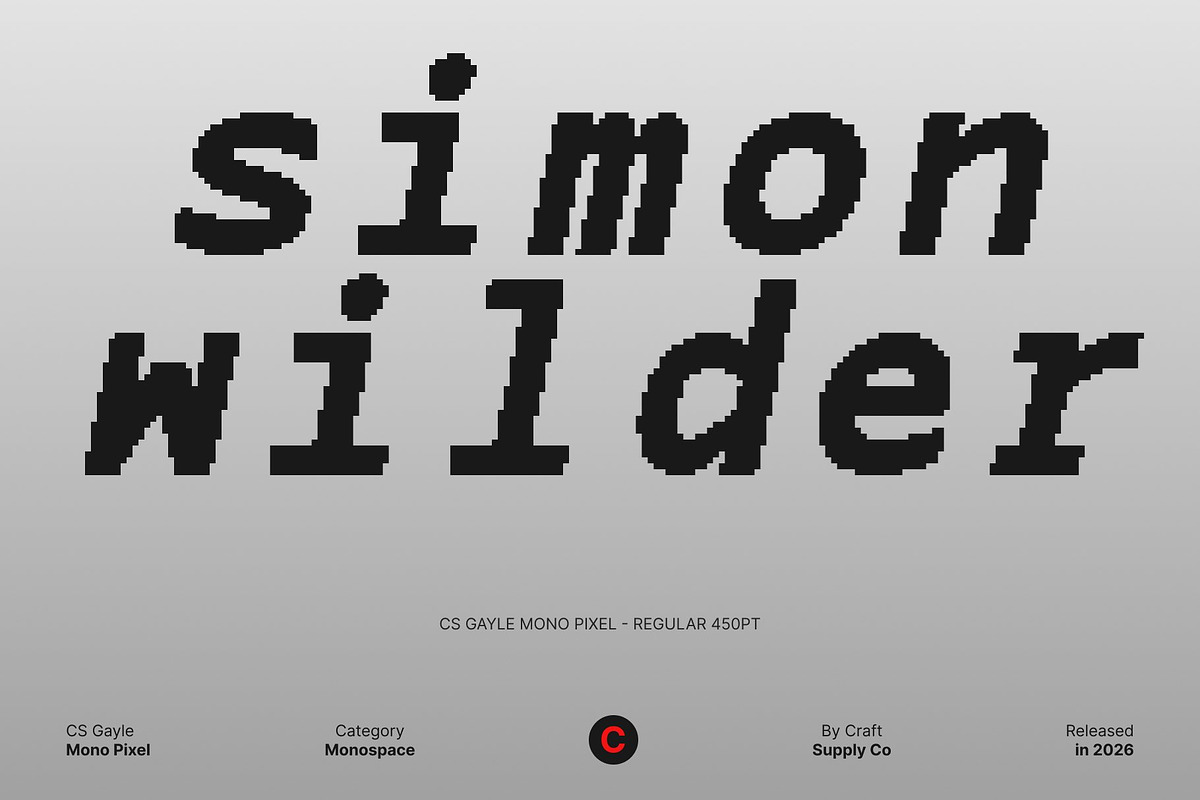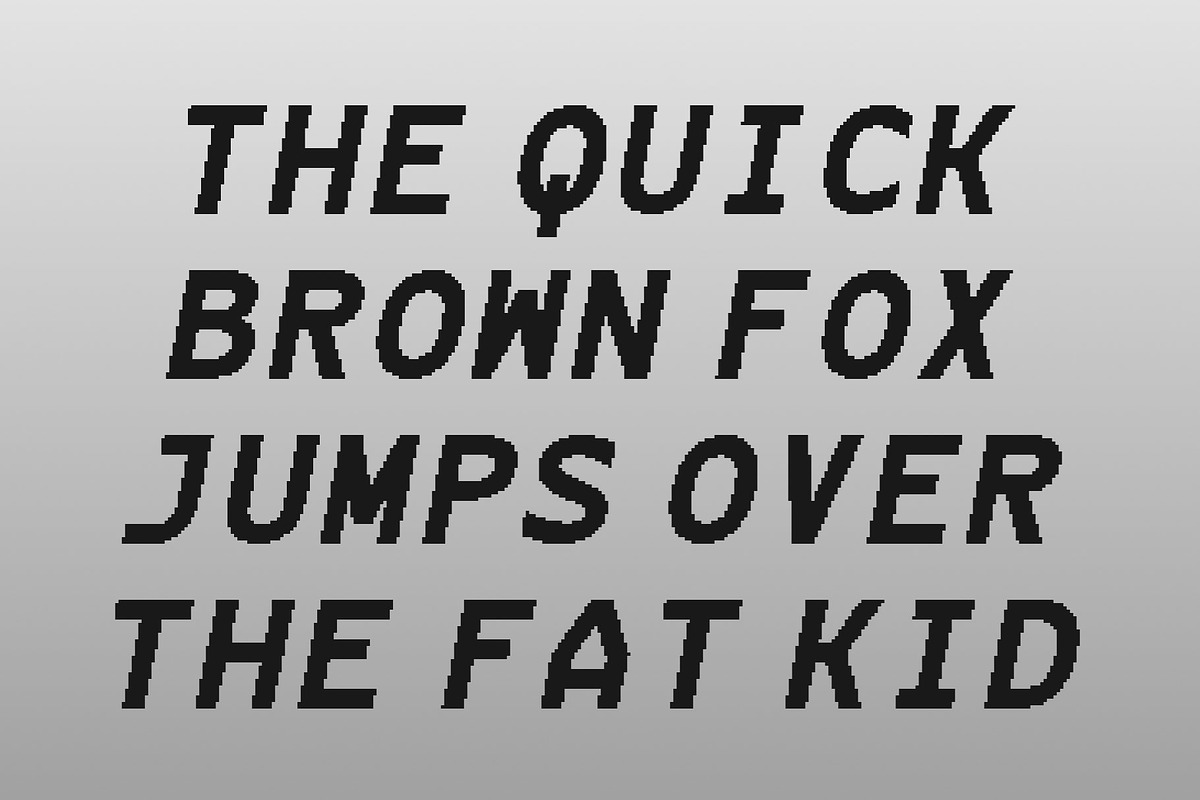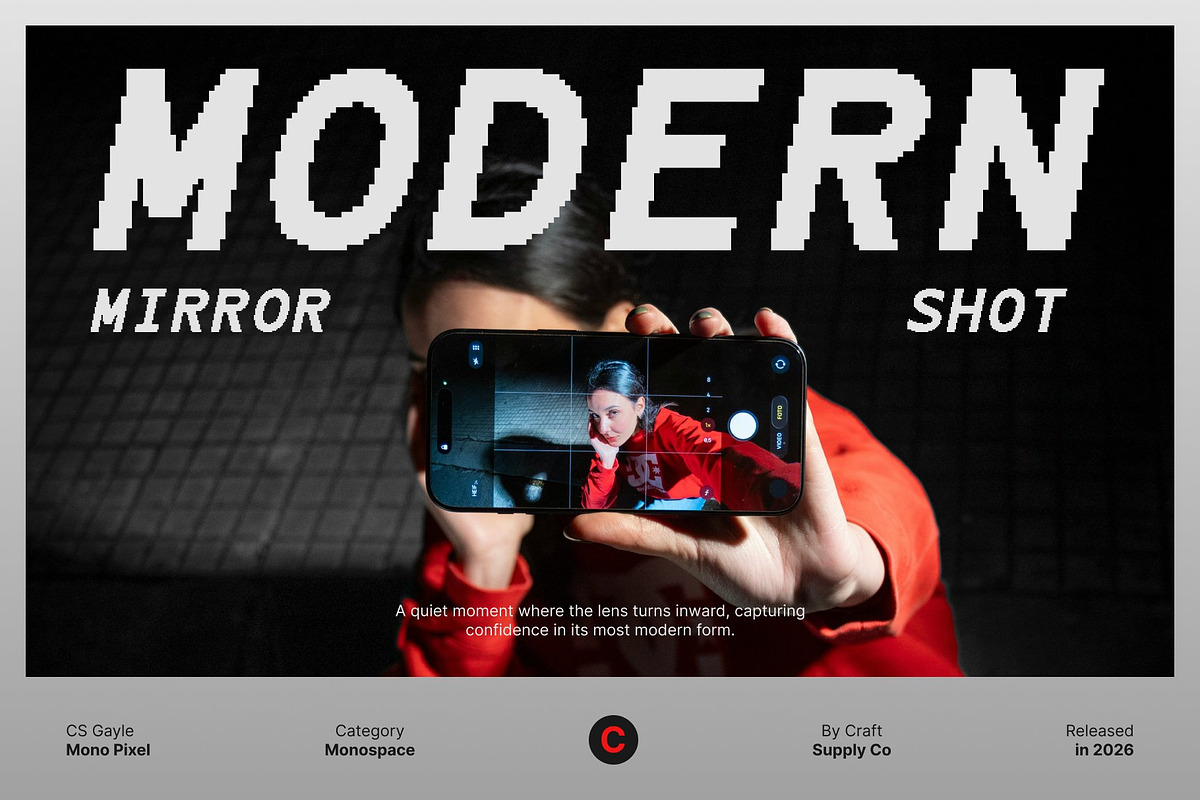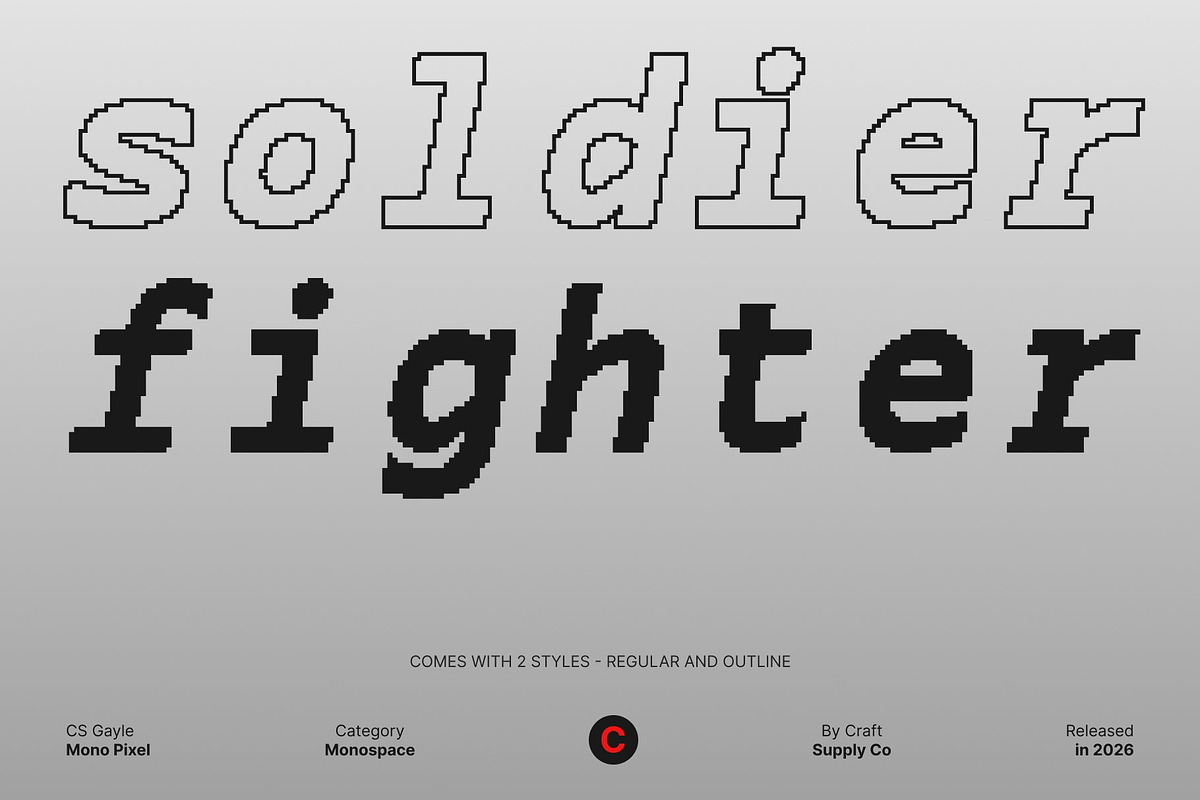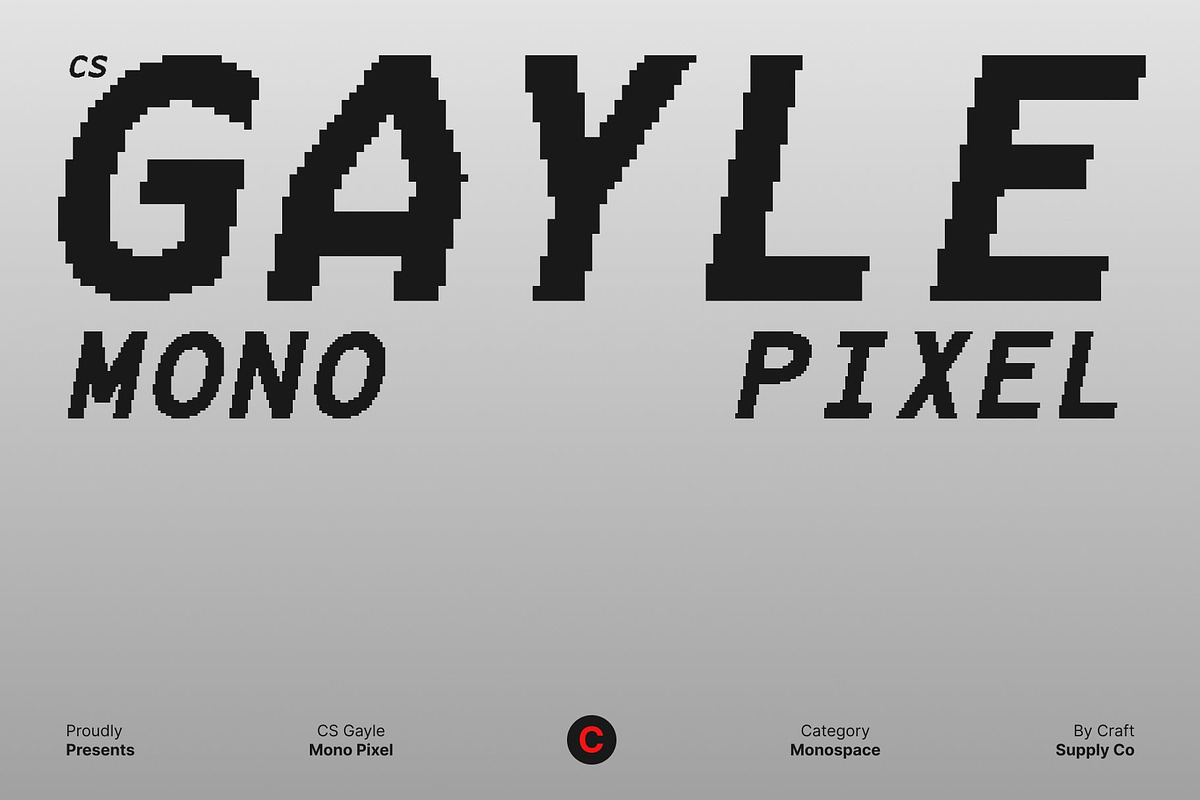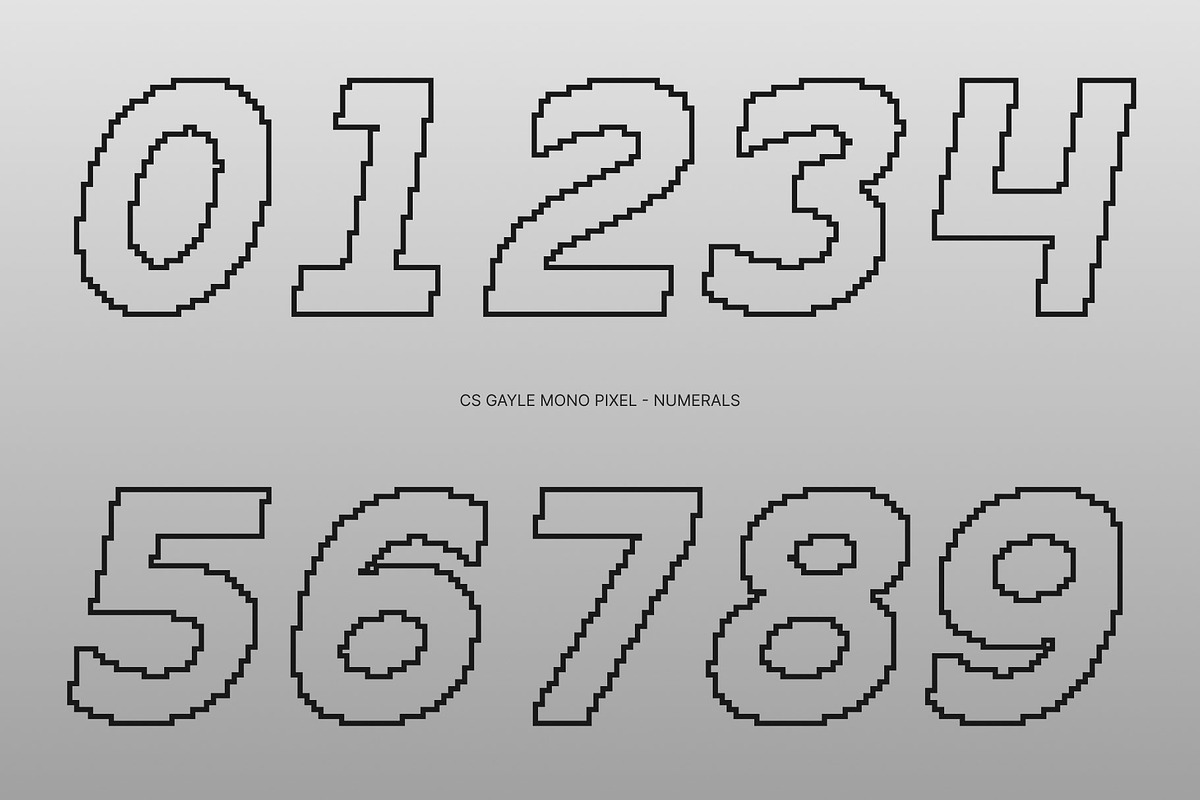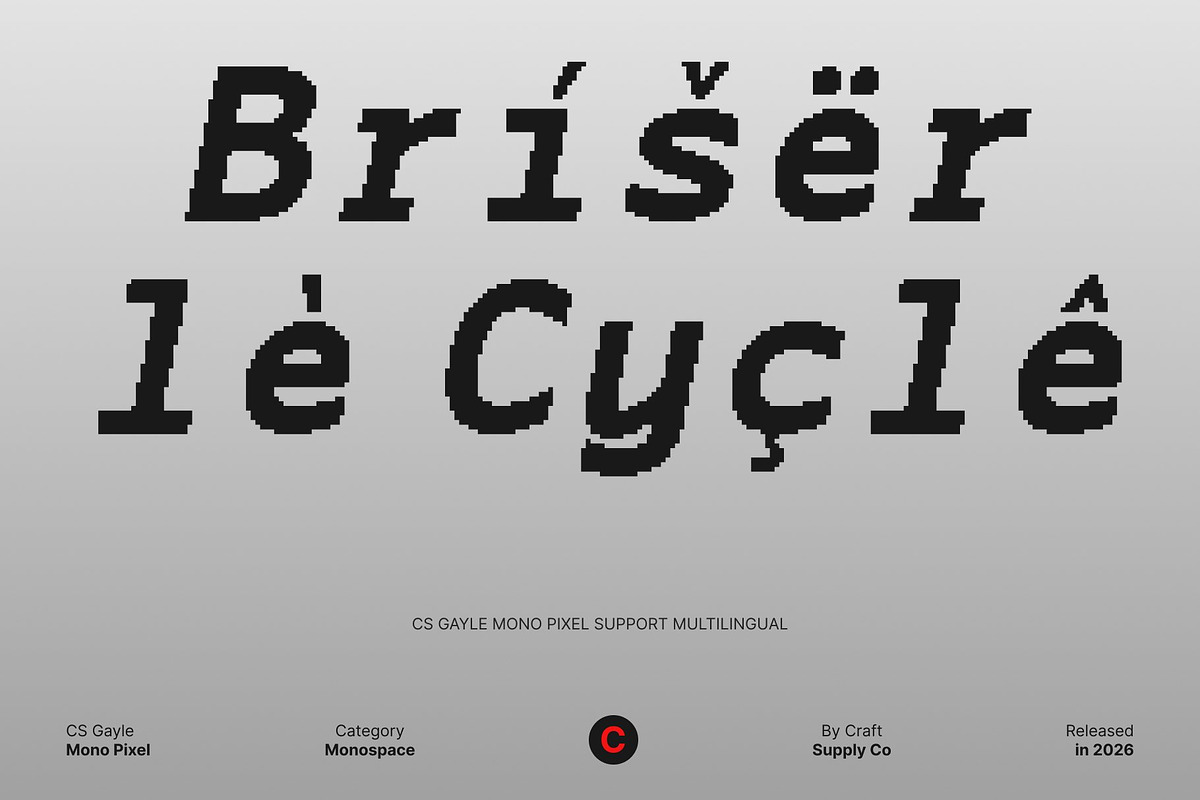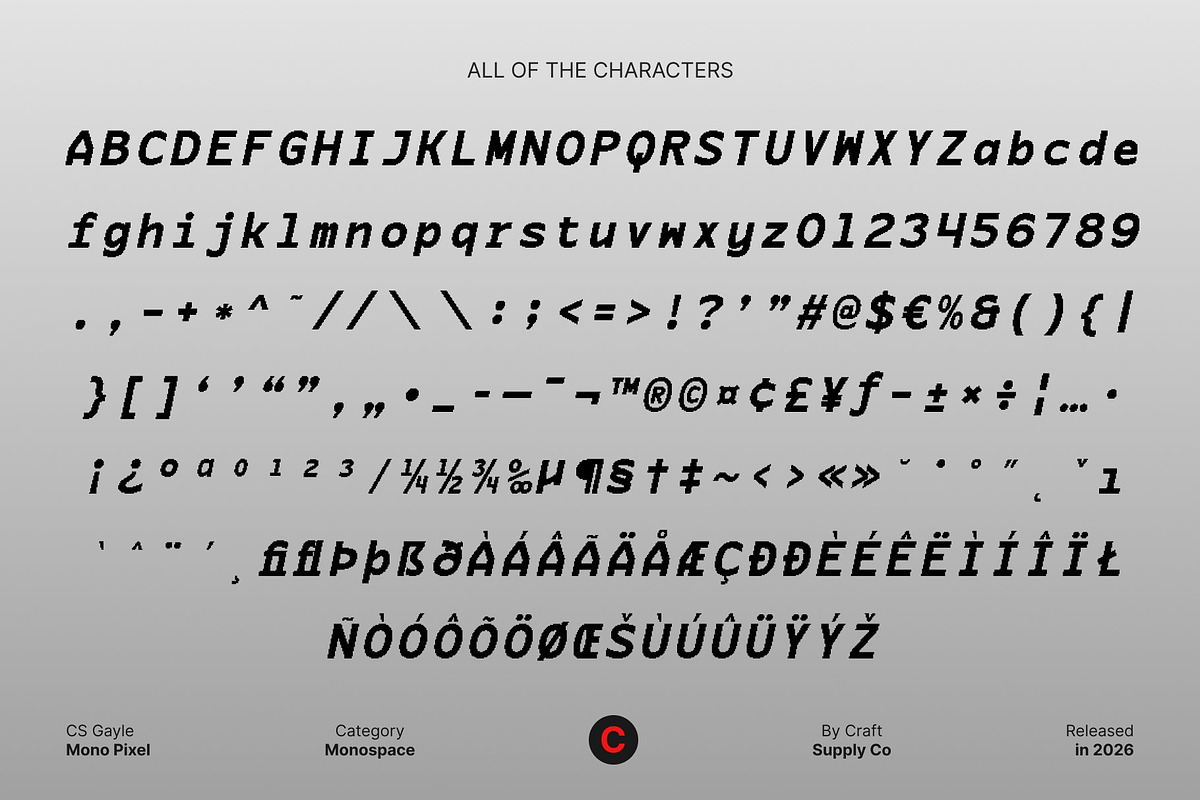
CS Gayle Mono Pixel
CS Gayle Mono Pixel – Sans Serif Typeface with Digital Precision and Technical Clarity
Minimalist Structure with Pixel Accuracy This is a modern monospaced sans serif typeface designed around simplicity, structure, and clarity. Built with clean, sharp letterforms and subtle pixel detailing, it delivers a precise digital look that feels organized, functional, and visually disciplined. The pixel character adds an old-digital nuance while preserving a clean, contemporary appearance.
Optimized for Technical and Coding Contexts Created with technical use in mind, this font excels in environments where readability and alignment are critical. Its monospaced construction ensures consistent character width, making it ideal for programming, source code, documentation, dashboards, and data-heavy layouts. The straightforward design helps reduce visual noise, allowing information to be read quickly and accurately.
Professional, Modern, and Screen-Friendly This font maintains a professional tone through its balanced proportions and crisp edges. Whether displayed on screens or in print, it remains clear and legible at various sizes. The pixel detailing reinforces a tech-forward identity without distracting from the content, making it suitable for modern digital systems.
Versatile for Digital and Print Applications From developer tools and tech websites to UI elements, manuals, and minimalist branding, this font adapts seamlessly. It offers a reliable typographic solution for projects that demand precision, clarity, and a refined digital aesthetic with subtle retro character.
- CS Gayle Mono Pixel Regular
- CS Gayle Mono Pixel Outline